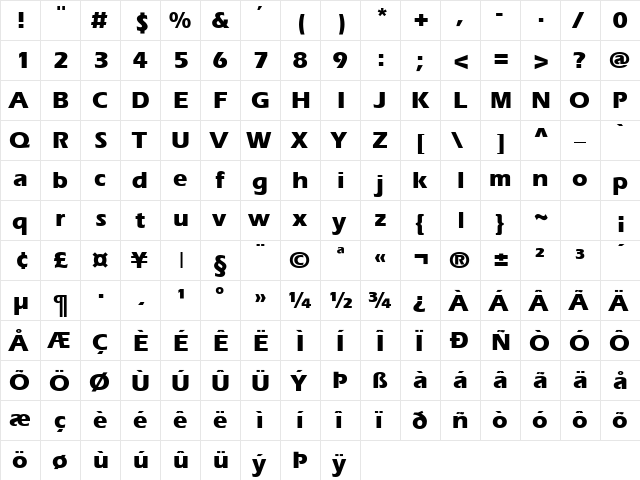
Erie Bold
Design Context for Erie Typeface
Erie takes a measured approach to typography — its balanced proportions and neutral character make it a reliable workhorse for both digital and print work. The heavy weight commands attention and anchors typographic hierarchies.